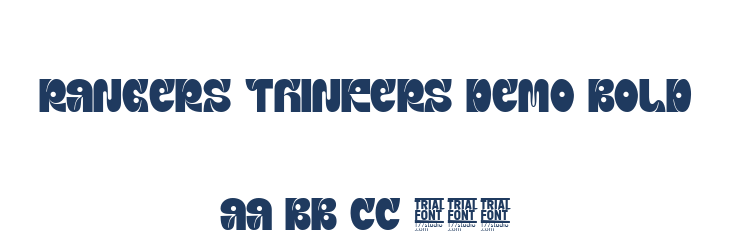
Think More For Solution Font
A modern, elongated font with narrow letterforms and a sleek design.
Think Cosmic Font
Casual handwritten script font.
Think Dreams Demo Inline Font
An elegant, cursive script font with flowing, artistic letterforms.
Graffi Think Font